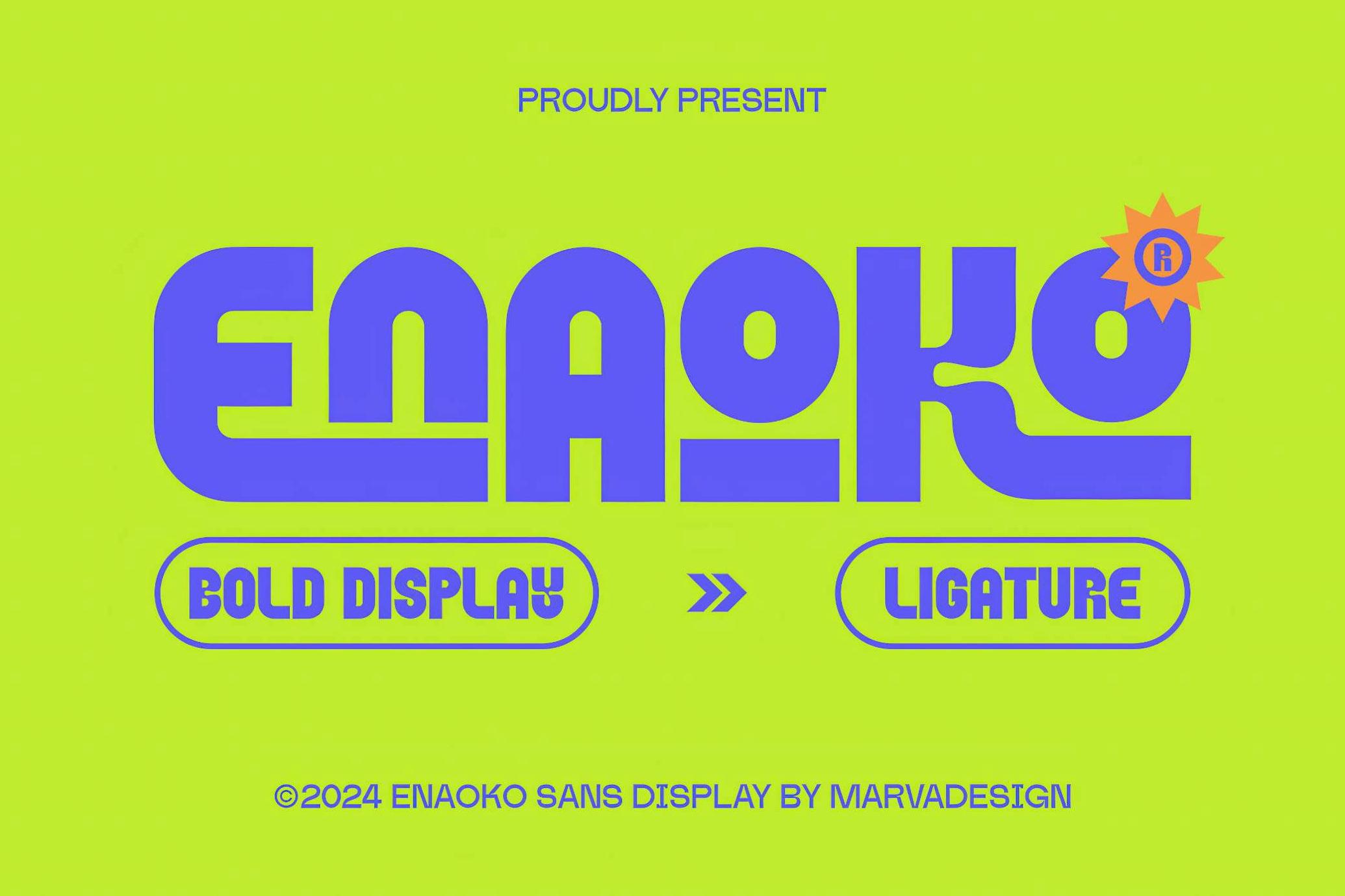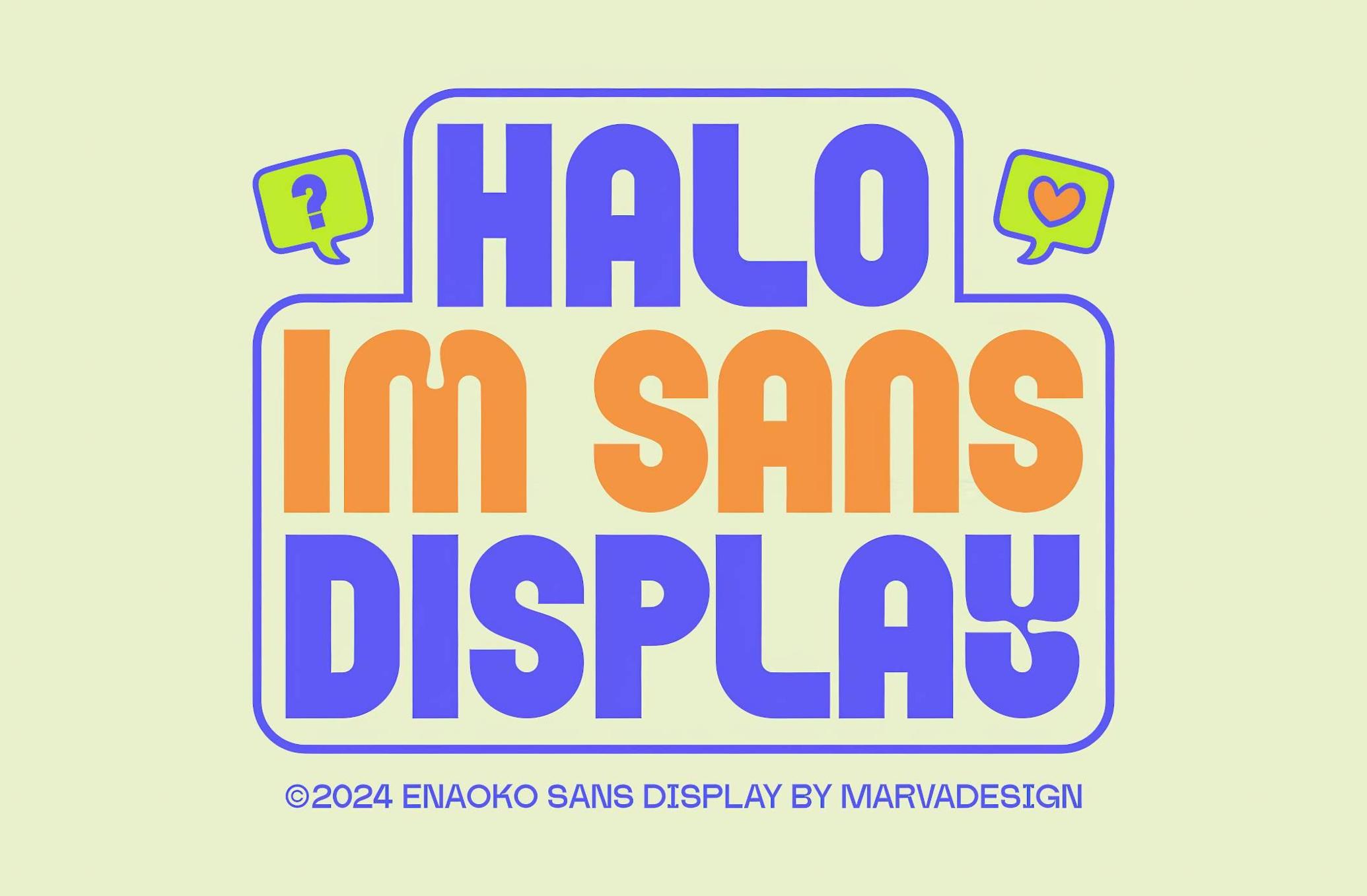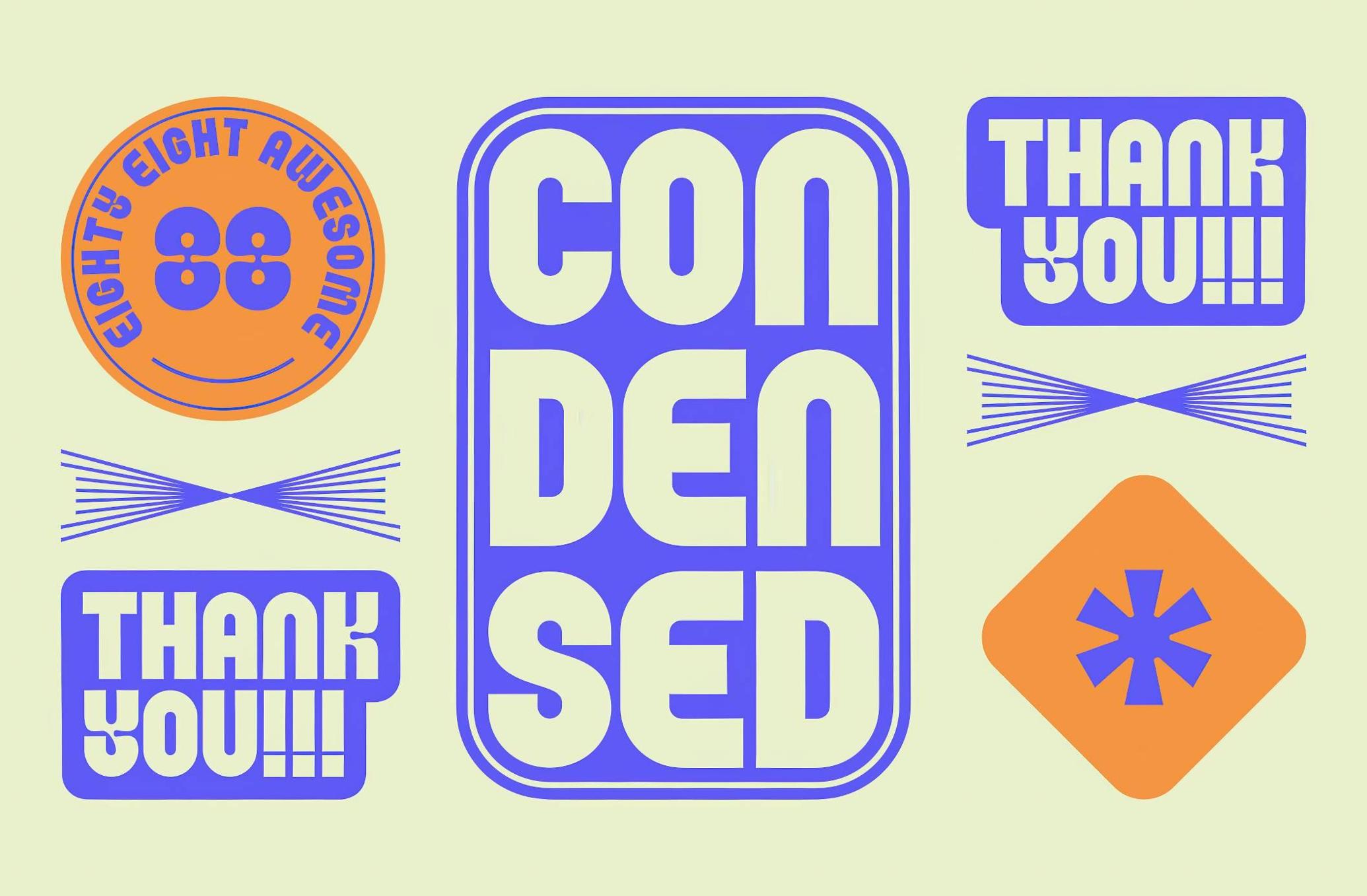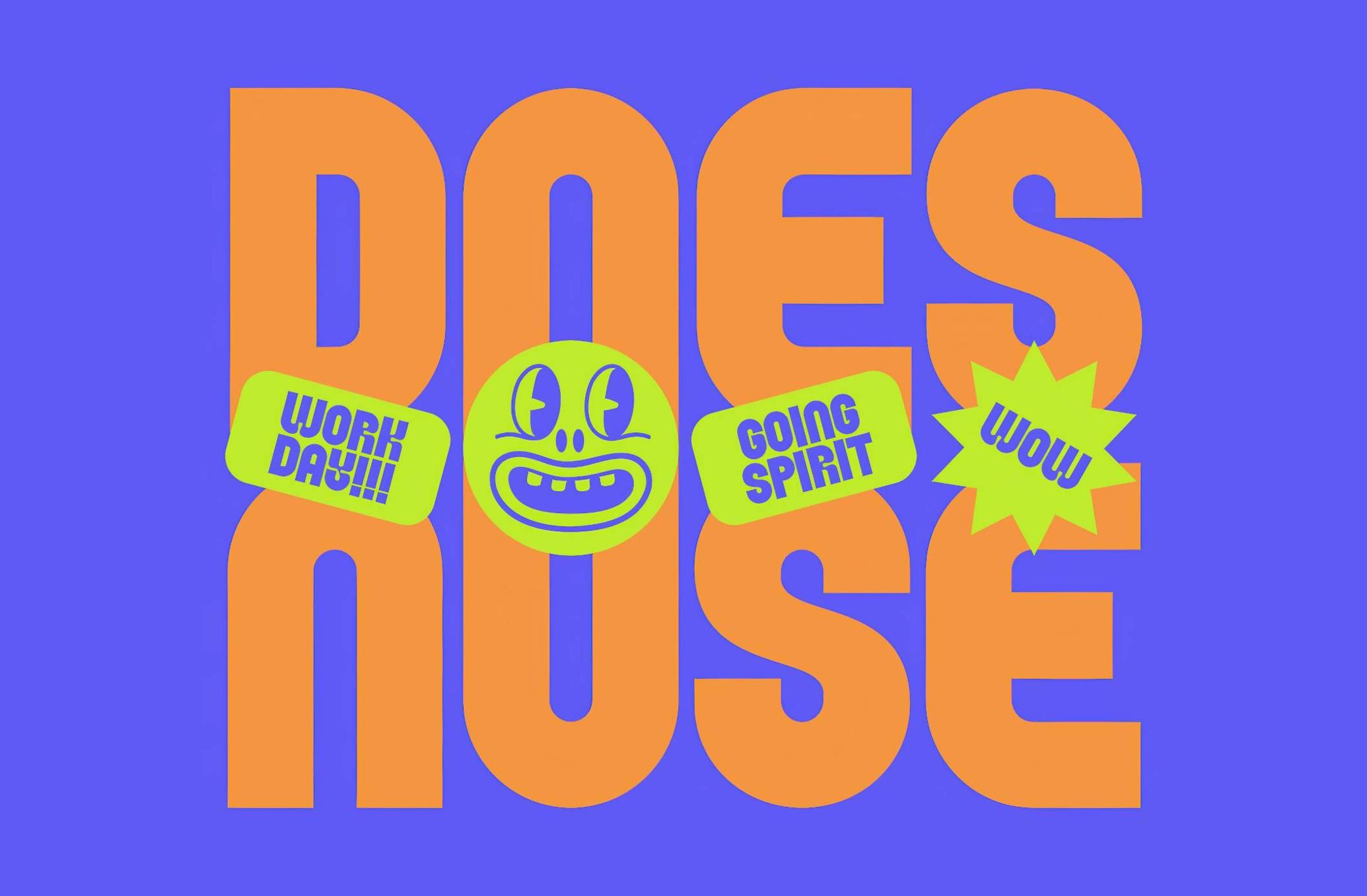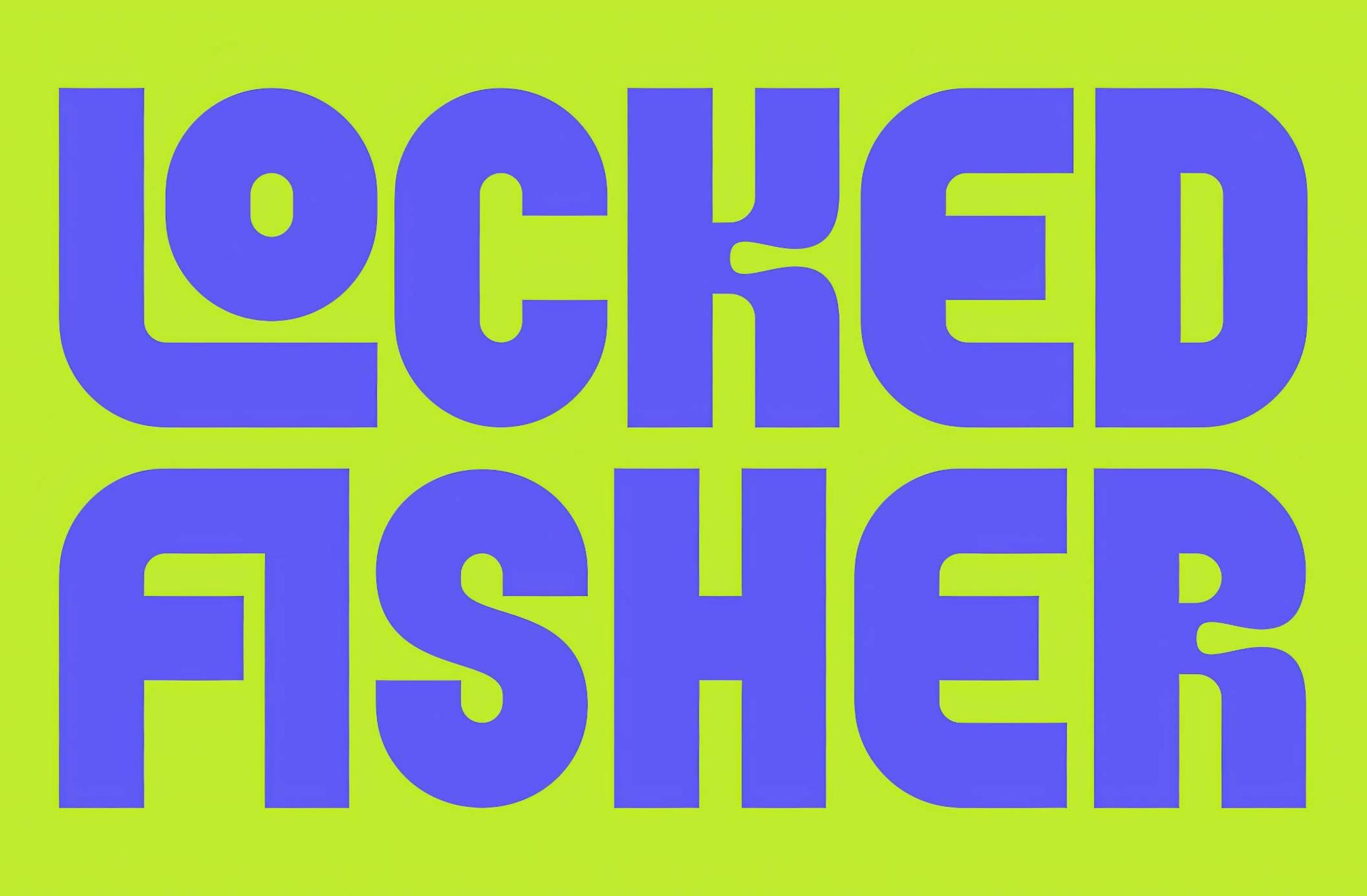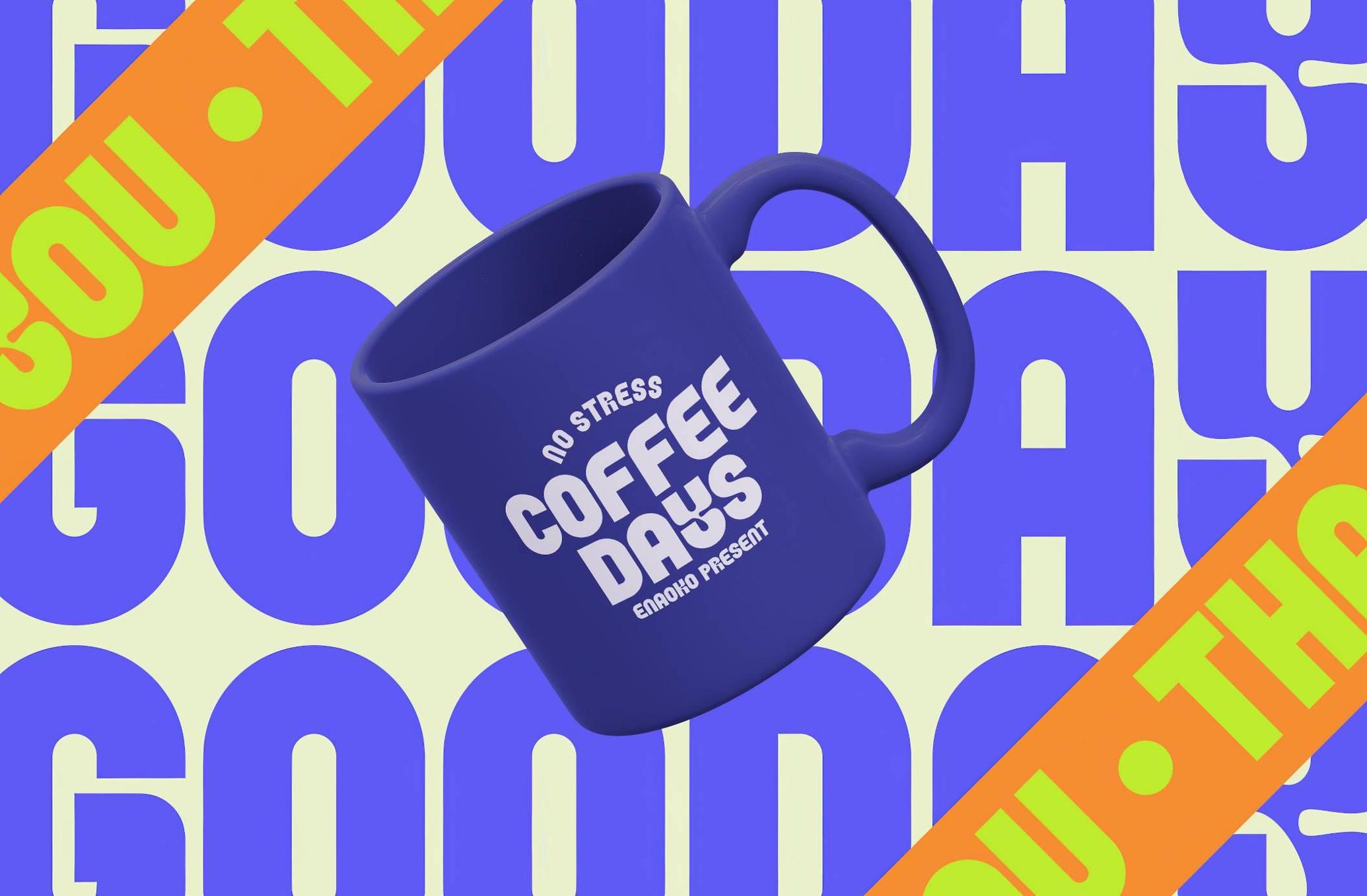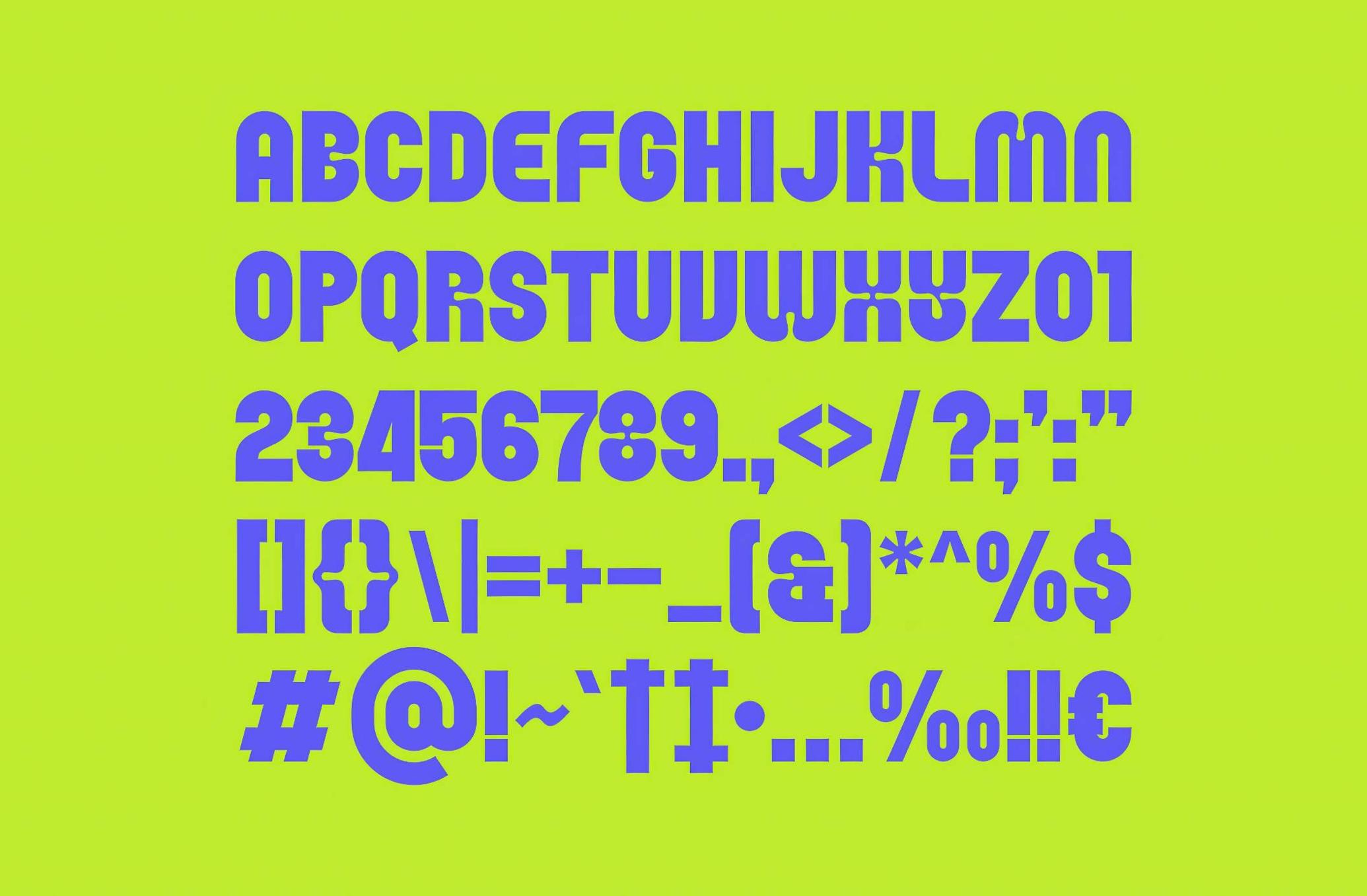
Enaoko — Display Sans Serif
Enaoko is the one skating past you with a grin, blasting synth-pop from a cassette player. It's chunky, confident, and just the right amount of weird. This bold display sans doesn’t take itself too seriously — but still knows how to own a headline. The semi-condensed forms keep things tidy, while playful ligatures and alternates add that extra flick of flair designers love to mess with. It’s a solid pick for anything that needs attitude without the angst — like posters, merch, logos, book covers, or whatever’s living on your PS canvas right now. It comes fully loaded with uppercase, lowercase, and multilingual support.